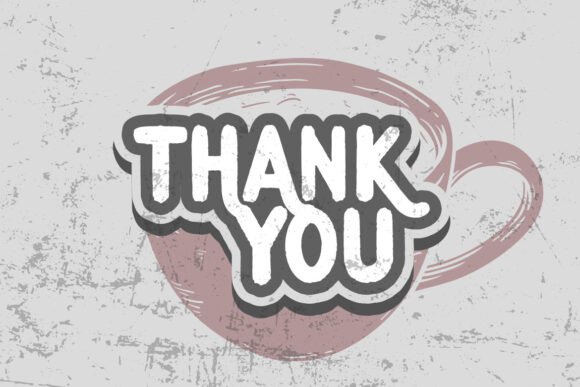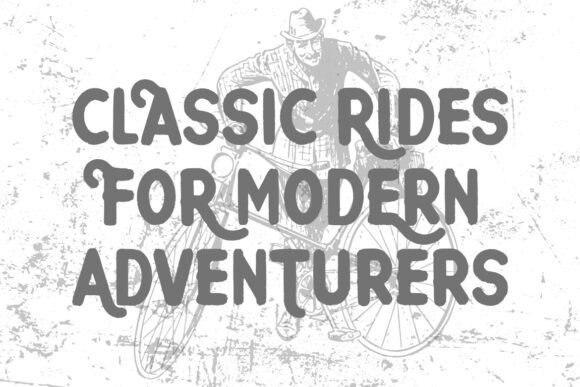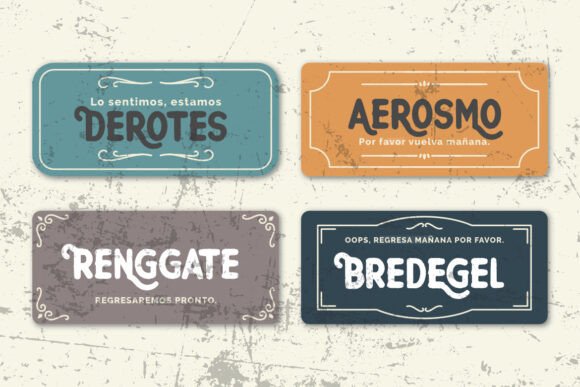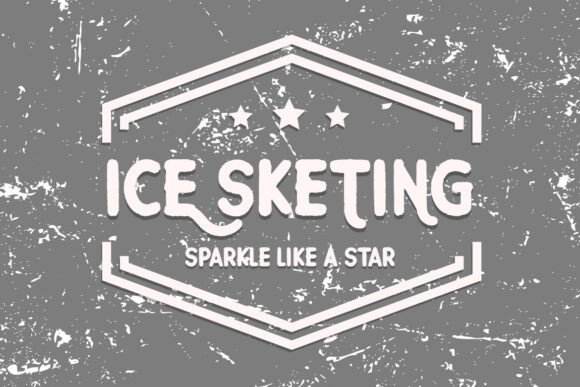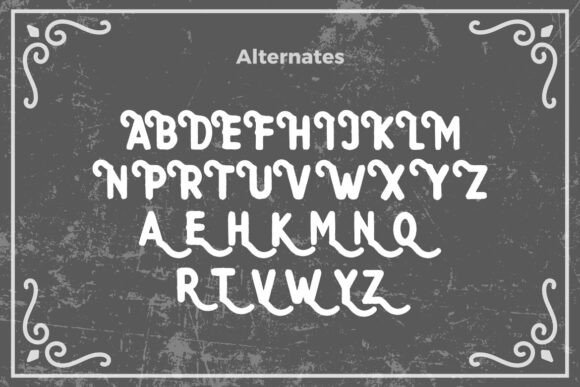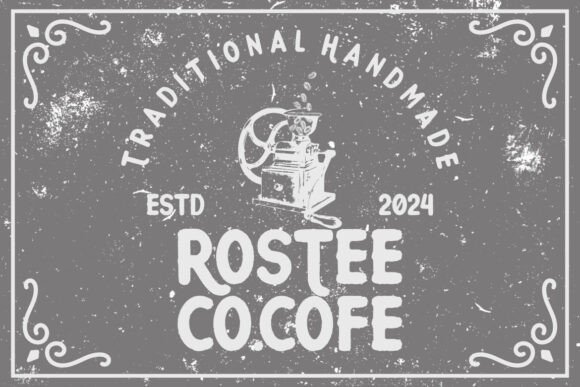
The Quest for the Perfect Vintage Font: Discovering Aerought
I still remember the design project that led me to Aerought. I was working on a branding project for a client who wanted an old-fashioned, rustic feel. I spent hours scouring font libraries, but nothing seemed quite right. That was until I stumbled upon Aerought, a handcrafted vintage font with a rough, textured look that perfectly captured the essence of a bygone era.
An Honest Review of Aerought
Aerought is a unique font that has quickly become a favorite in my design toolkit. Here’s what I love about it:
- ✨ Unique texture: Aerought’s rough, textured look gives it a distinct character that’s hard to find in other fonts.
- ✅ Classic feel: The font’s old-fashioned style feels rugged and classic, making it perfect for projects that need an antique vibe.
- 💡 Versatility: Aerought can be used for a wide range of projects, from branding and packaging to signage and editorial design.
Of course, no font is perfect, and Aerought has a few quirks:
- 🤔 Limited kerning options: Aerought’s kerning options are limited, which can make it tricky to use for body text.
- ⚠️ Glyph limitations: Some users have reported issues with certain glyphs not displaying correctly.
- Take advantage of OpenType features like stylistic alternates and glyphs to add visual interest to your design.
The Story Behind Aerought
Aerought was designed by a team of typographers who wanted to create a font that captured the essence of a bygone era. Inspired by vintage signs, distressed wood, and worn stone, Aerought is a love letter to the past. The design team spent countless hours perfecting the font’s texture, kerning, and glyphs to create a truly unique and versatile font.
| What is Aerought? | Aerought is a handcrafted vintage font with a rough, textured look. |
| Is Aerought suitable for body text? | While Aerought can be used for body text, it’s best suited for headlines and titles due to its textured look and limited kerning options. |
| Does Aerought support OpenType features? | Yes, Aerought supports OpenType features like stylistic alternates and glyphs, which can be used to add visual interest to your design. |